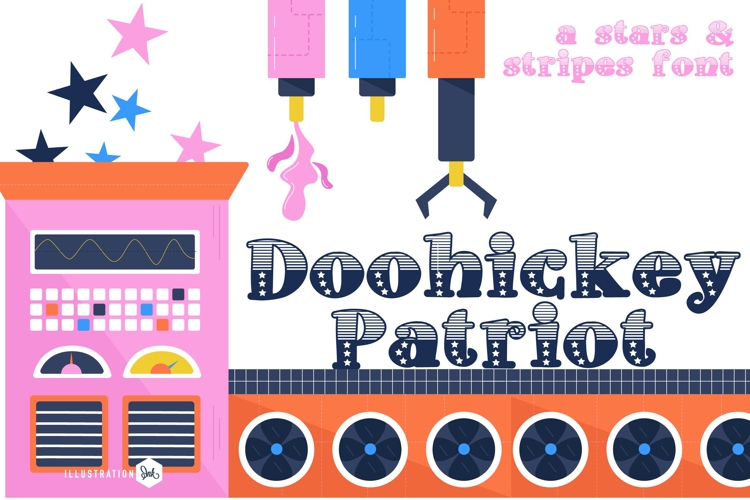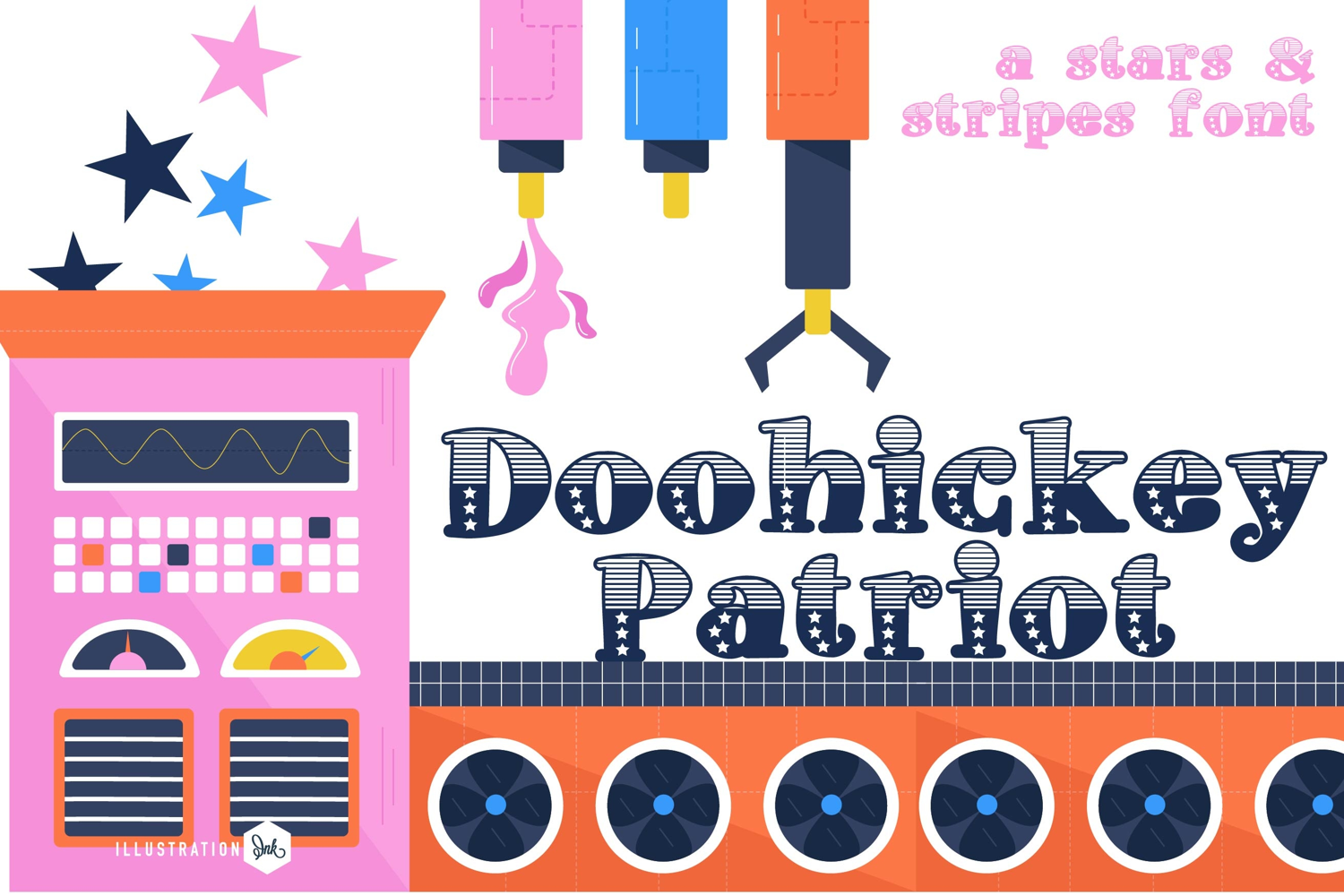
Doohickey Patriot Font Family
This hand-crafted font is a crafty sans serif with stars and stripes on some family members.
• The letters are not perfectly uniform in size or shape.
• There may be slight variations in the spacing between letters and words.
• The font may have a "wiggly" or "squiggly" appearance.
• The font may be difficult to read at small sizes.